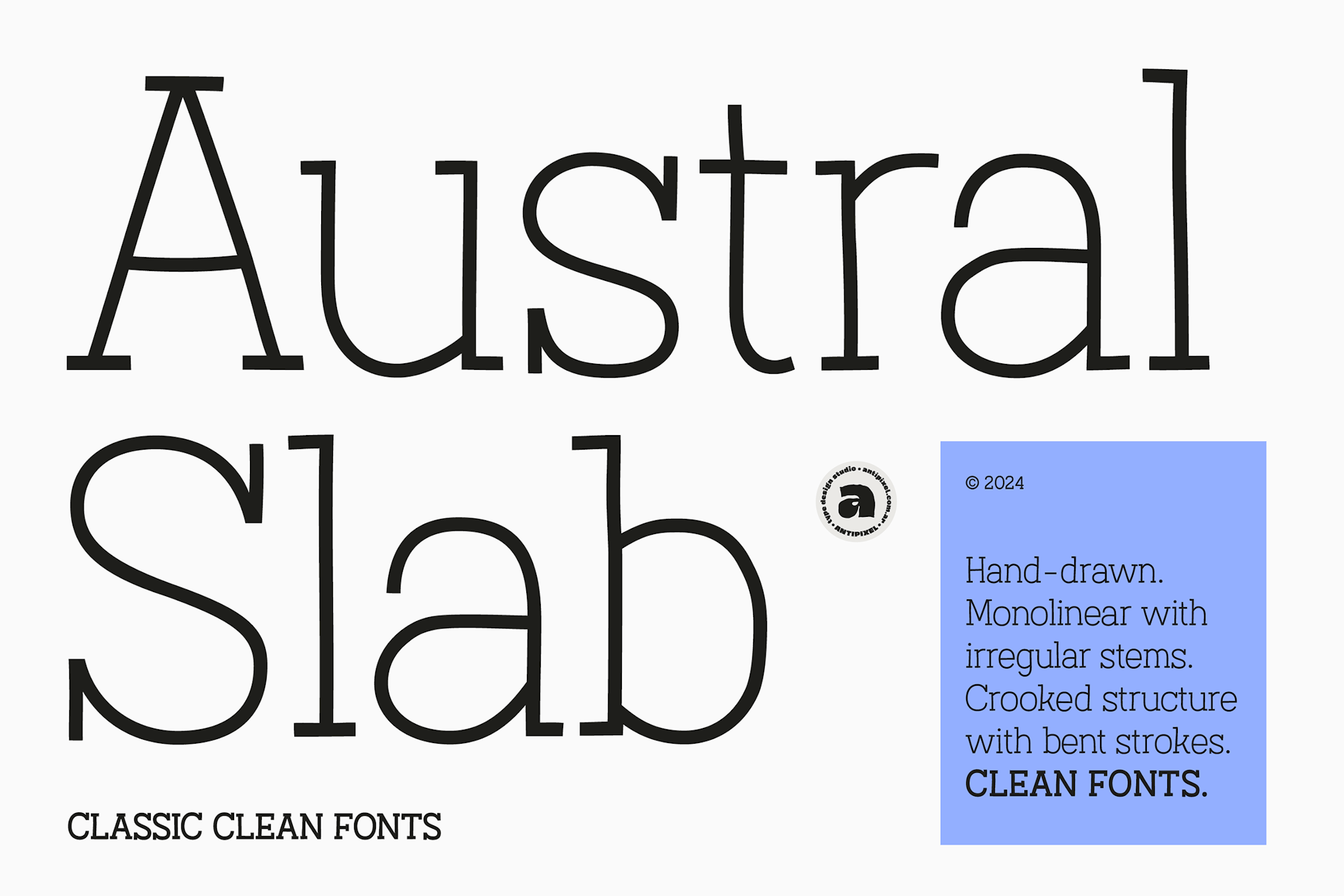
Austral Slab is a sophisticated serif font designed for impactful display and poster use, ideal for capturing attention in various design projects. Its normal spacing and large optimum size ensure readability and visual appeal, making it perfect for headlines and promotional materials. The font comes with comprehensive documentation to assist users in maximizing its potential.